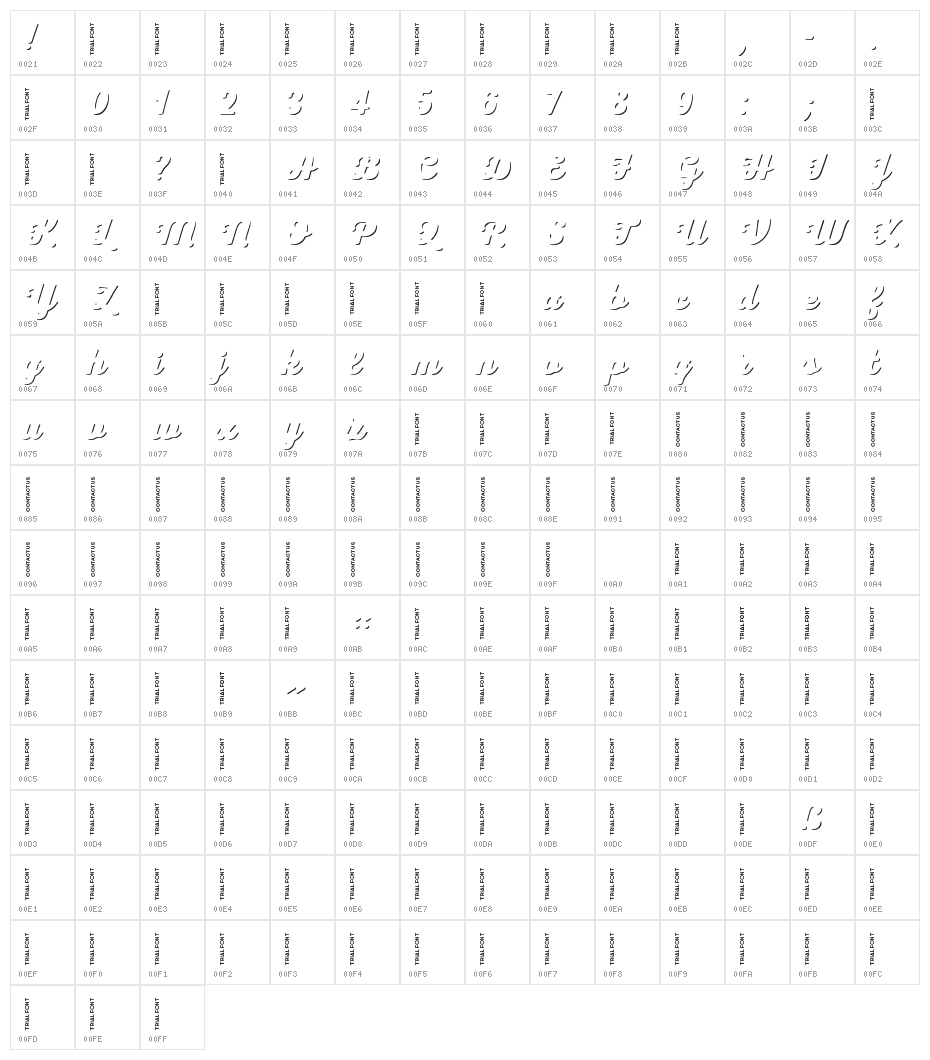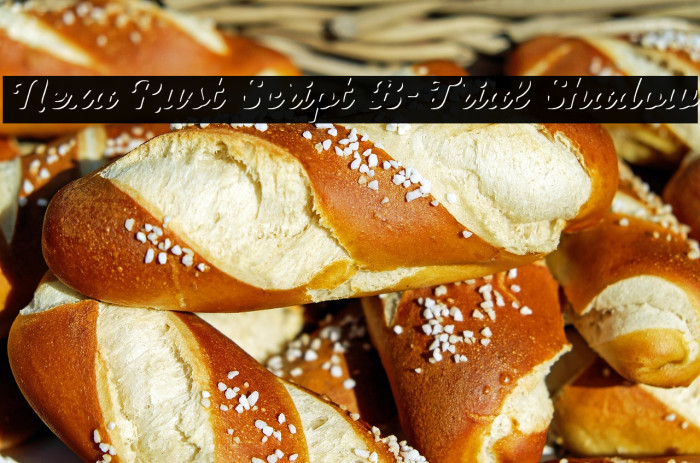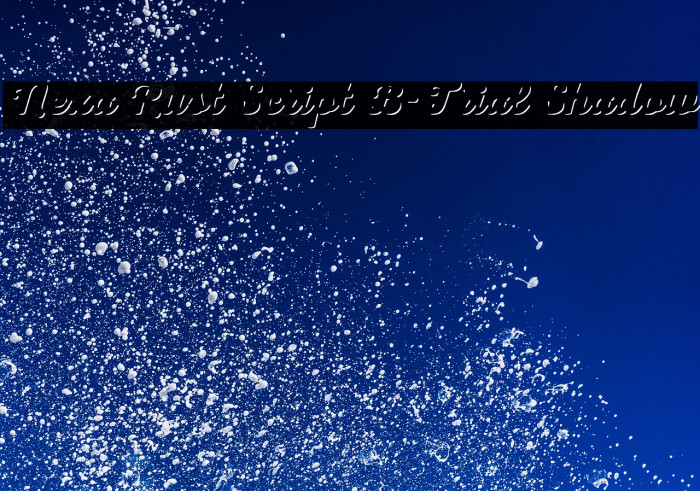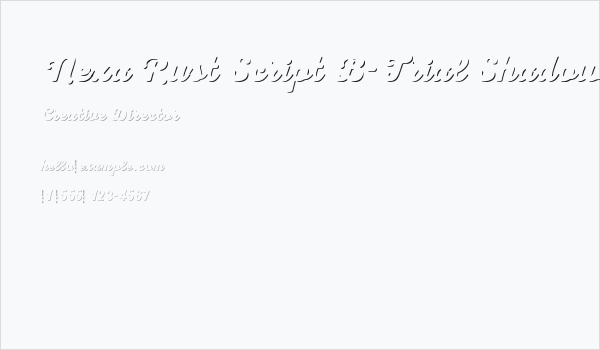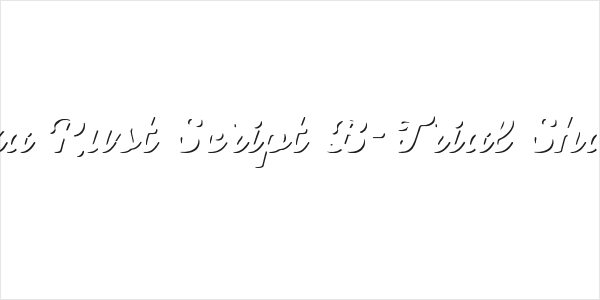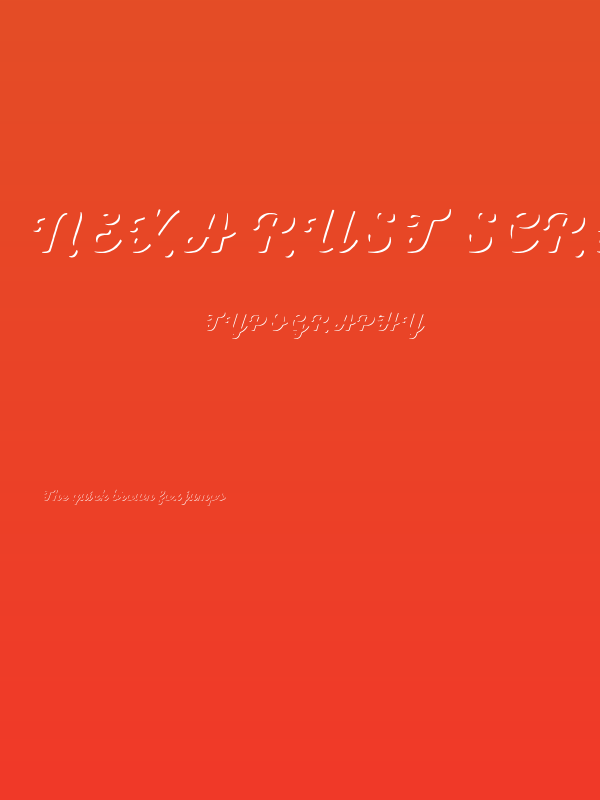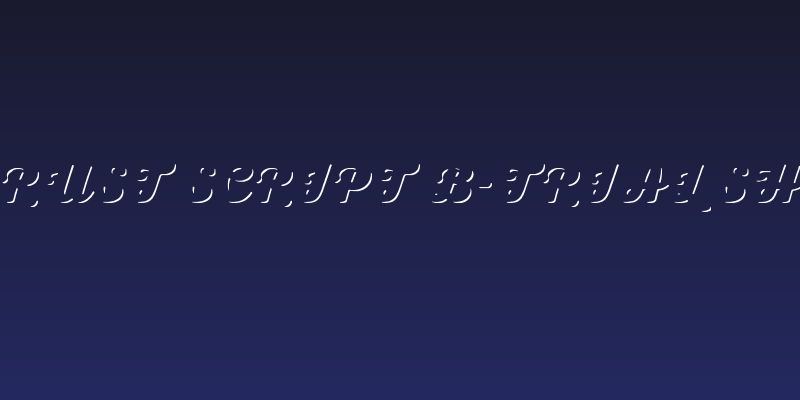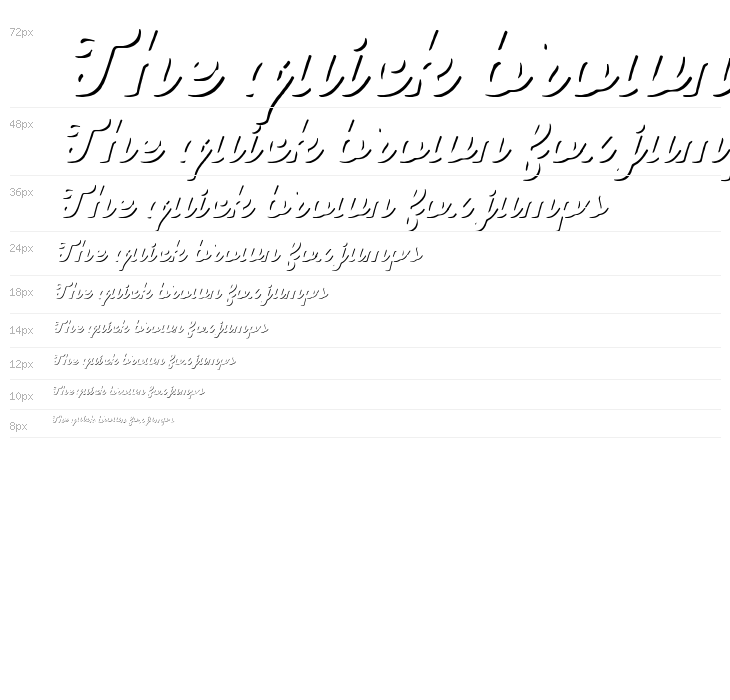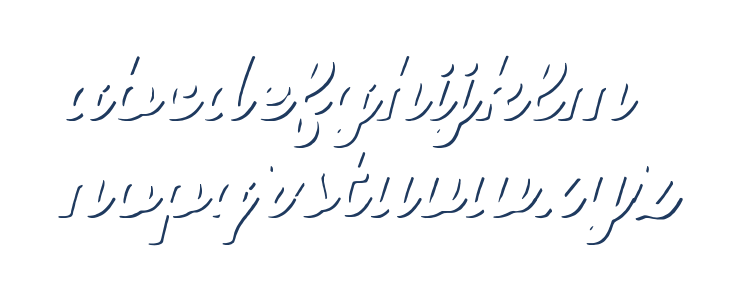
Nexa Rust Script B-Trial Shadow Font
Nexa Rust Script B-Trial Shadow Description
This font features a dynamic and energetic script style with a shadow effect that adds depth and dimension. The characters are fluid and connected, giving a sense of movement and flow. The uppercase letters maintain a consistent height, while the lowercase letters exhibit a playful bounce, enhancing the casual and informal appearance. The numerals are distinctive, with a slight slant that complements the overall script style. Special characters are integrated seamlessly, maintaining the font's cohesive look. This font's shadow effect creates a three-dimensional feel, making it stand out in various design contexts.
Use CaseLogos, Headlines, Invitations
Proposed ProjectsIdeal for branding projects, invitations, greeting cards, and any design needing a lively and engaging script style.